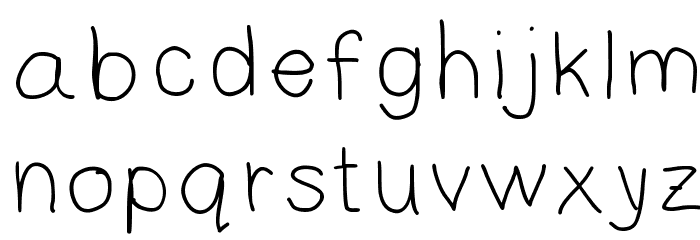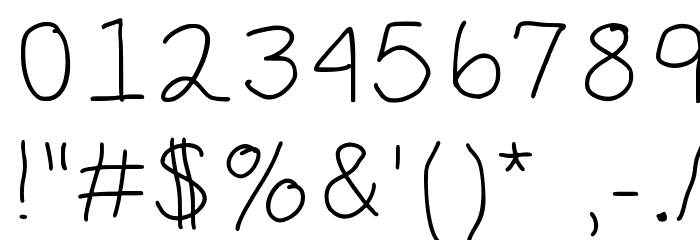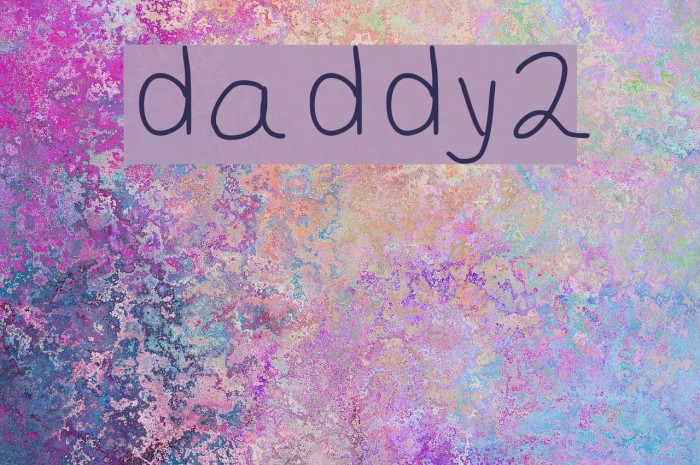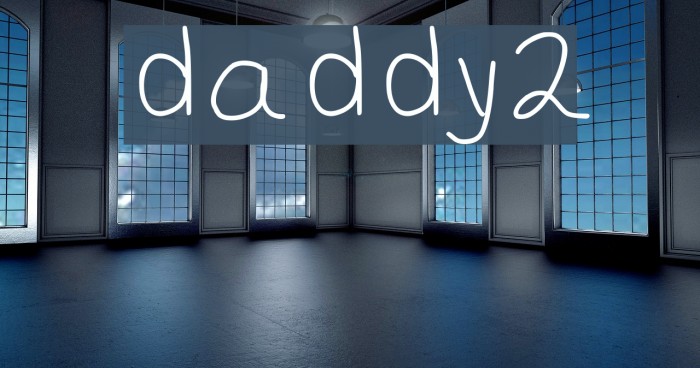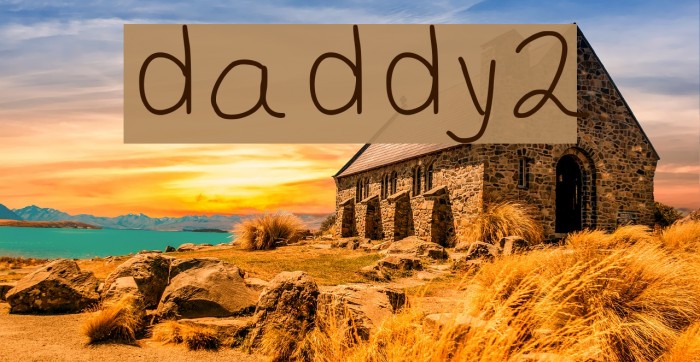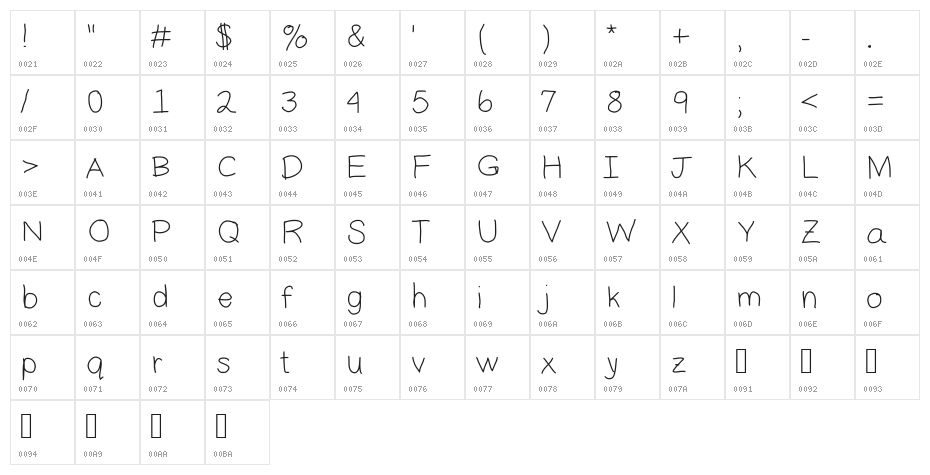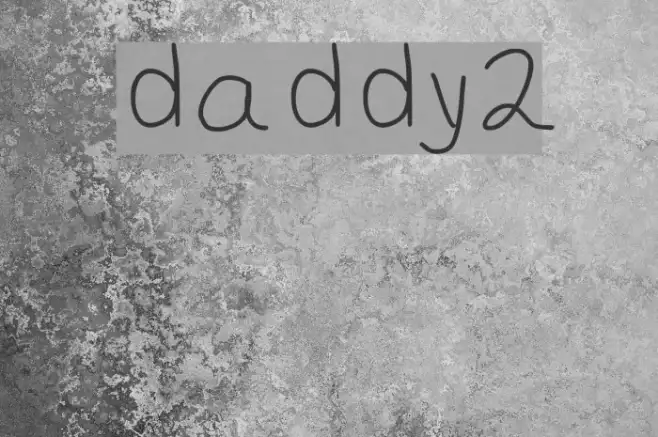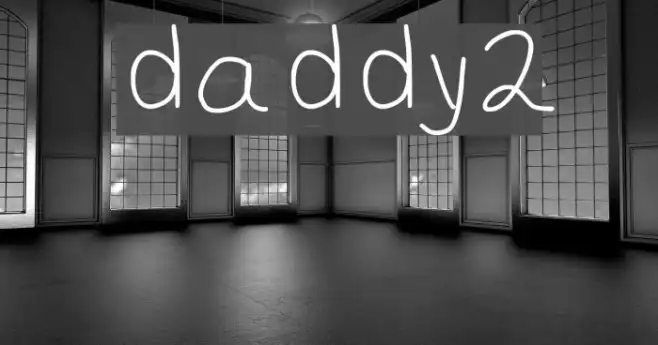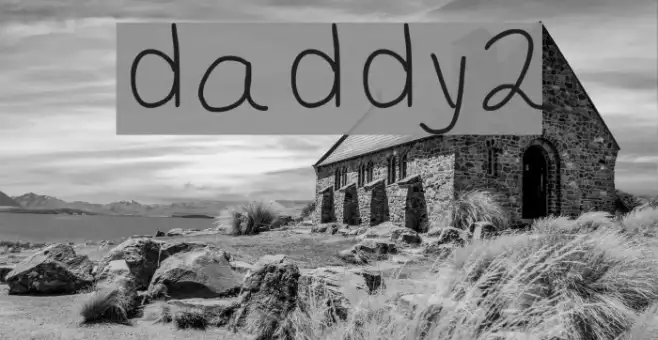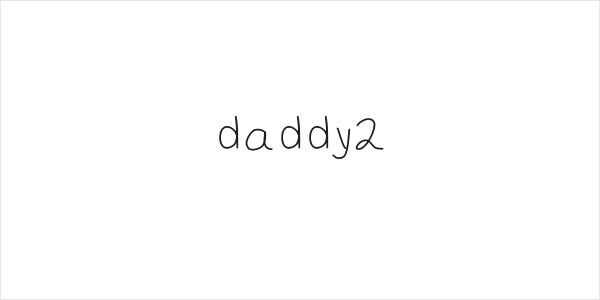
daddy2 Font
This font features a playful and casual handwritten style, characterized by its irregular strokes and whimsical appearance. The letters are slightly uneven, giving it a charming and informal look that mimics natural handwriting. The uppercase and lowercase letters maintain a consistent style, with rounded edges and a friendly demeanor. Numbers and special characters follow the same playful theme, making this font versatile for creative projects. Its unique personality makes it ideal for designs that require a personal touch.
A playful, handwritten font with a casual and whimsical style.
- Proposed Projects: Ideal for greeting cards, children's books, playful branding, and informal invitations.
- Overall Style: Casual
- Use Case: Headlines, Logos, Informal text